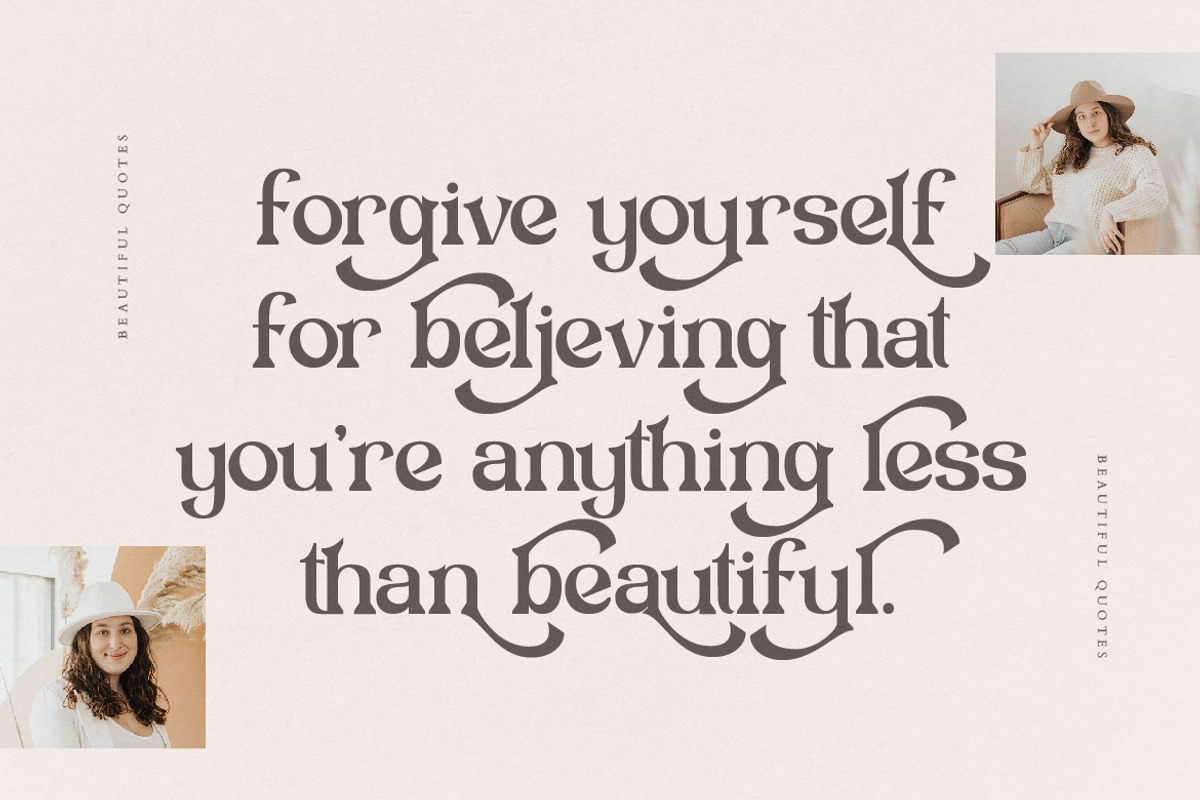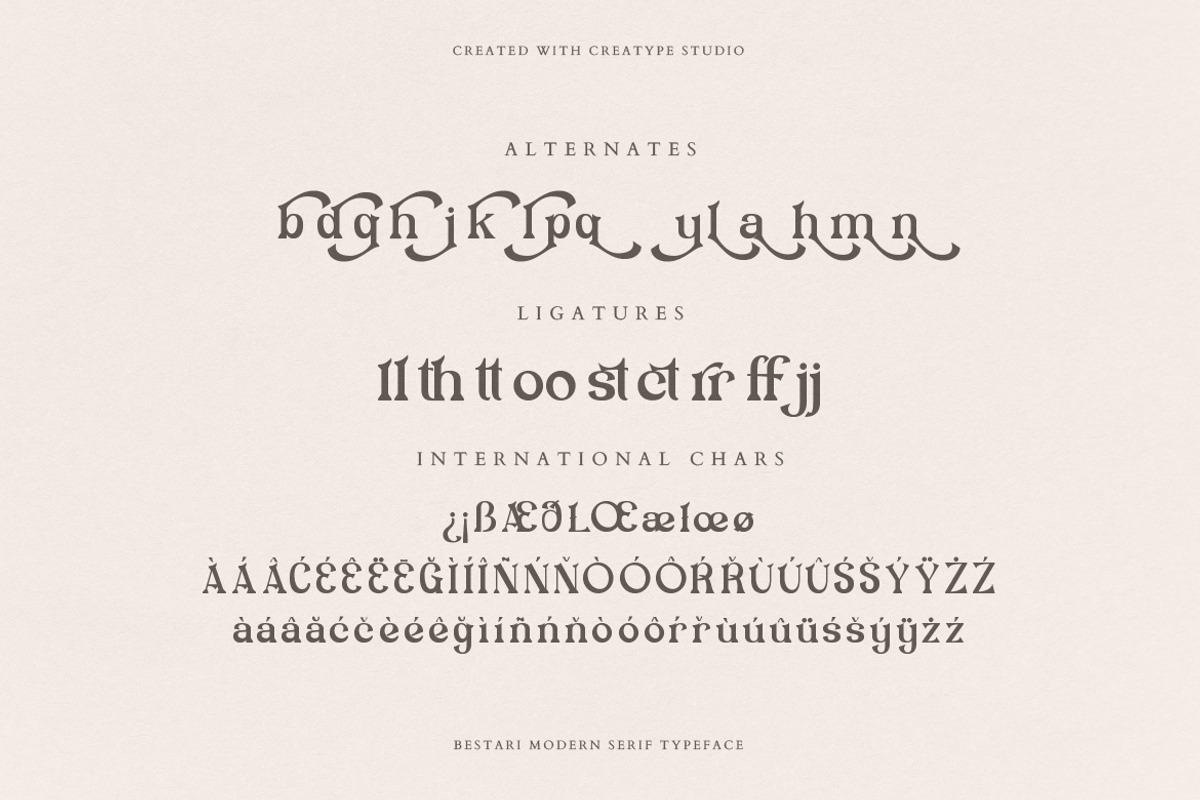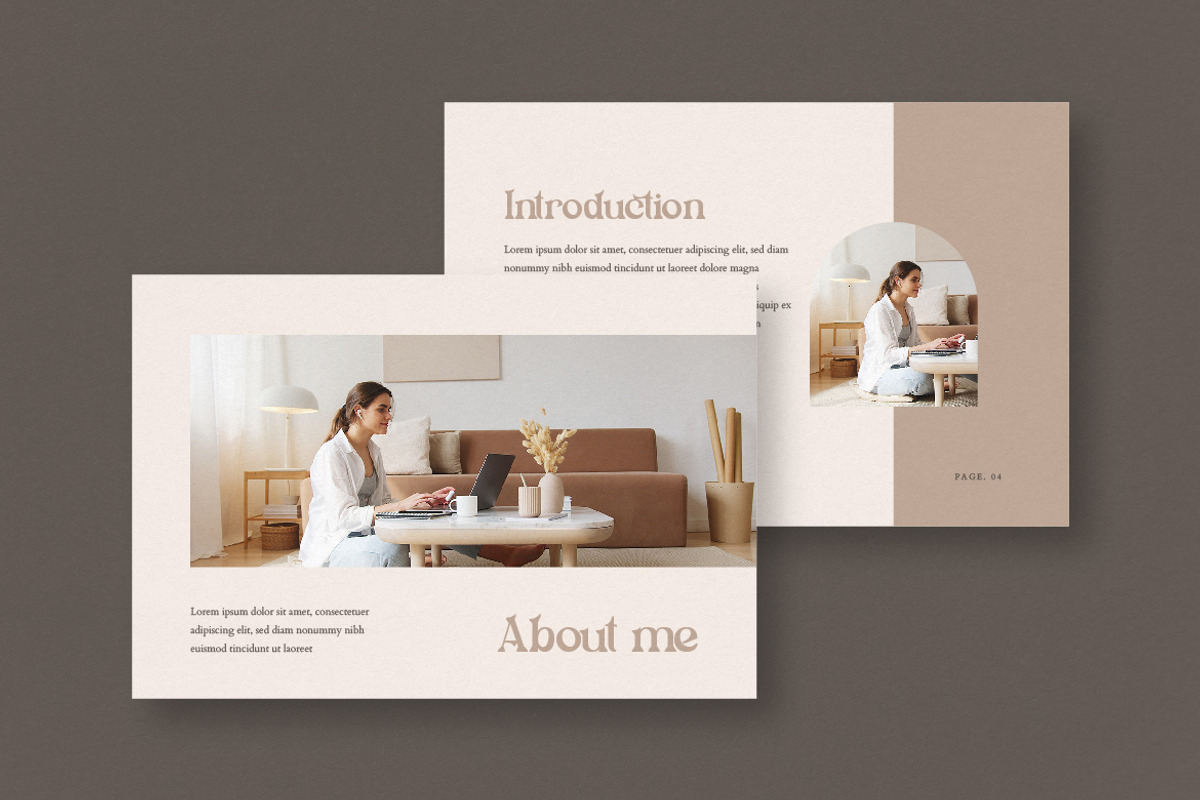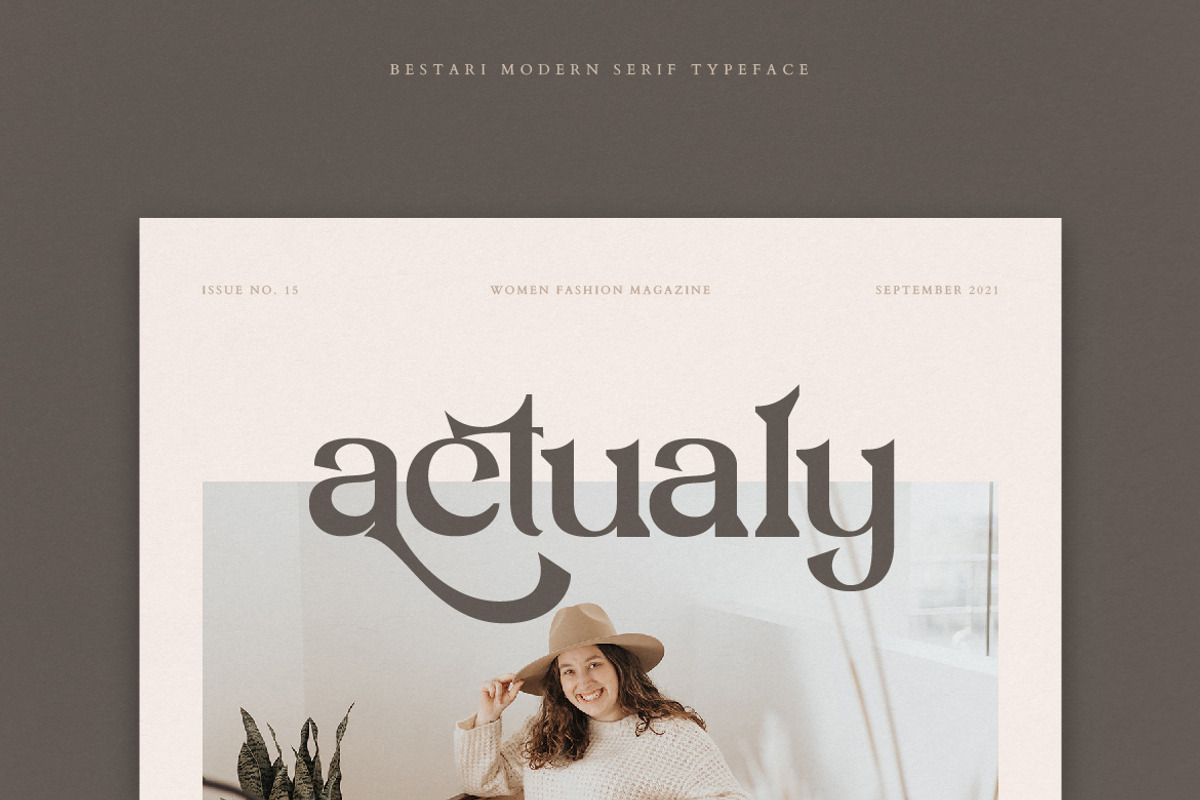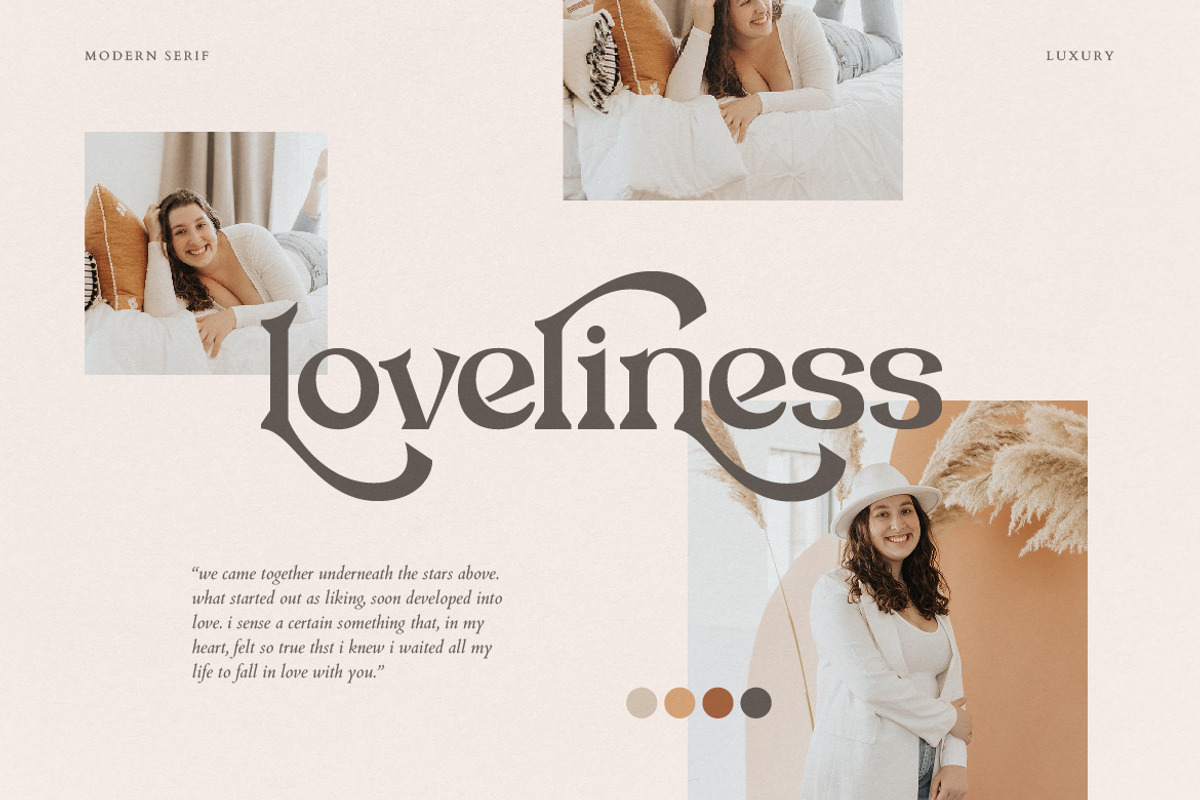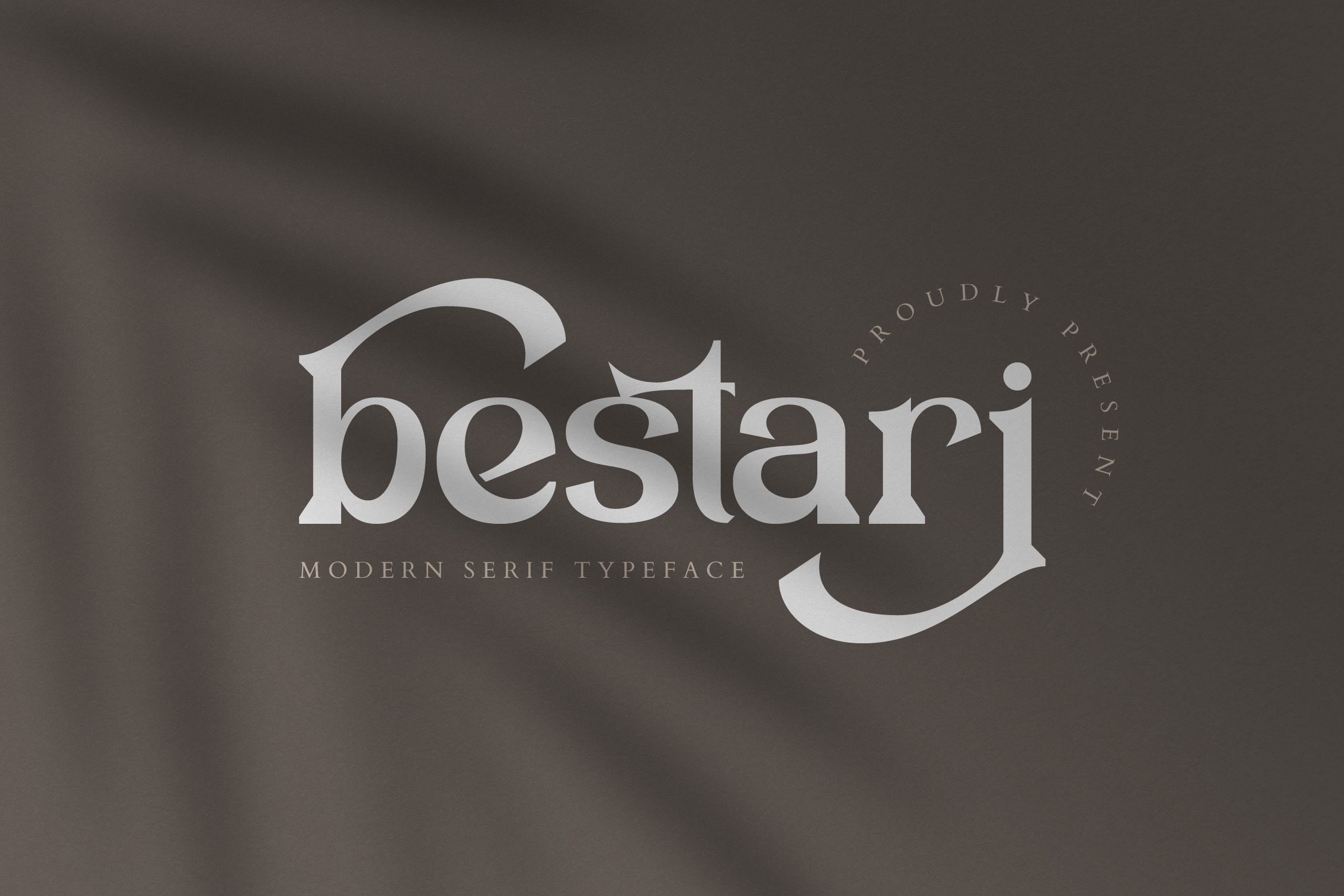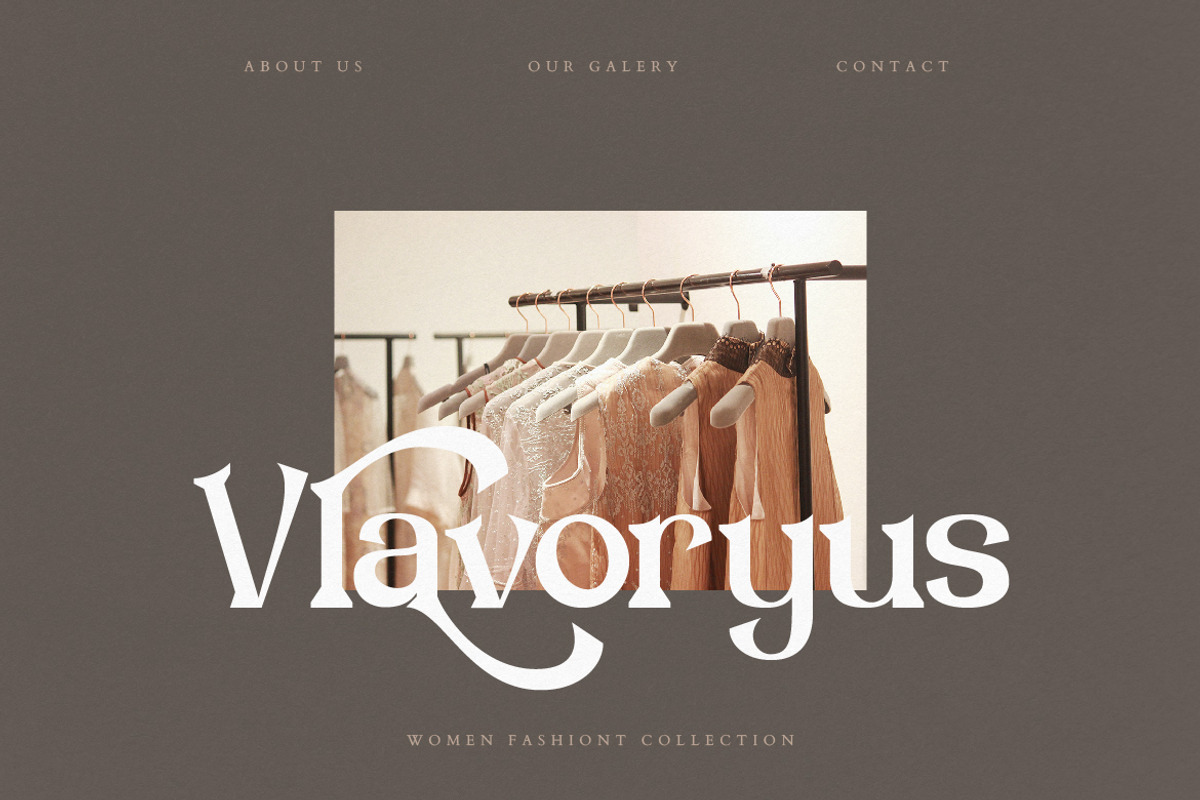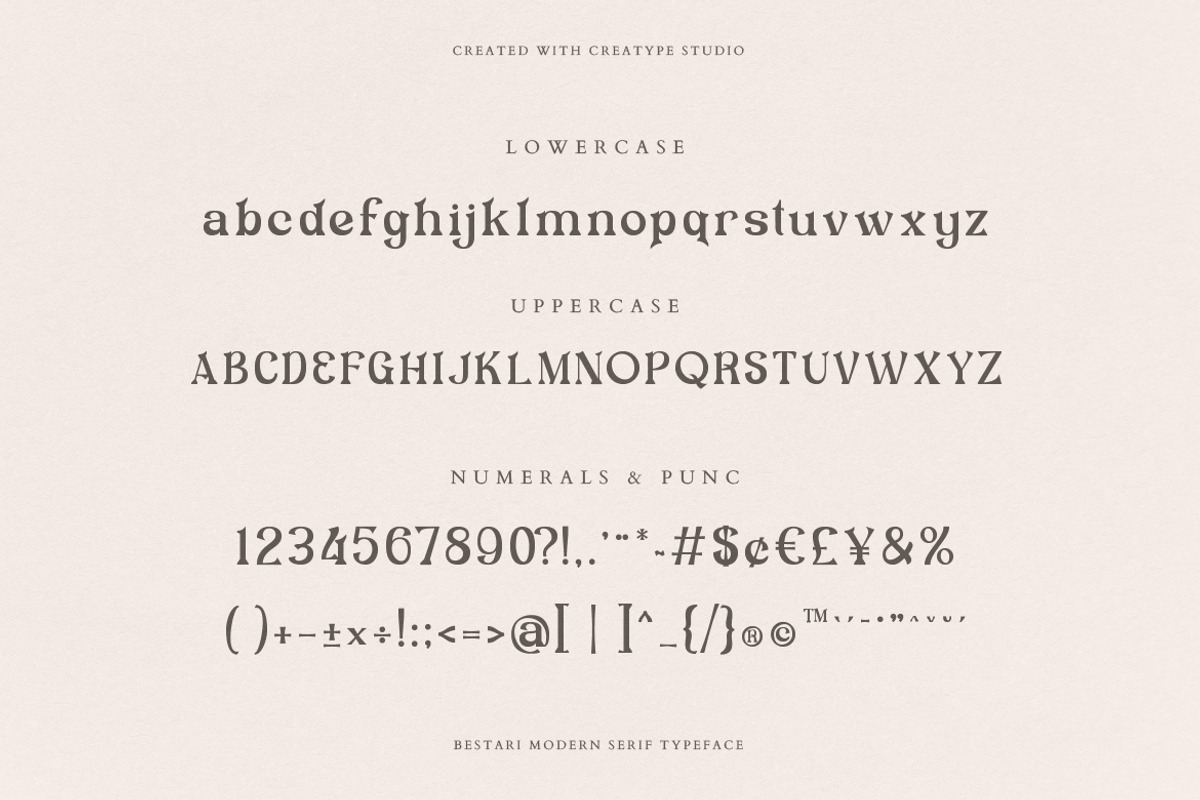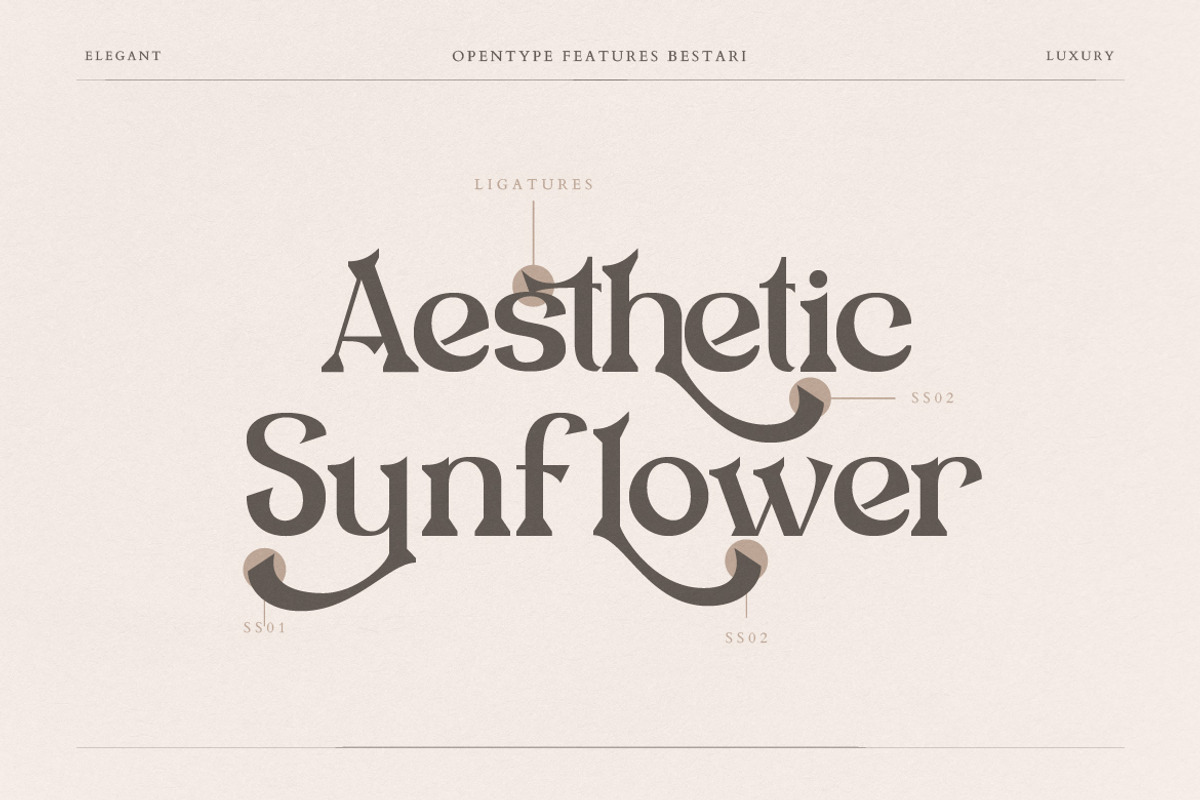
Bestari Serif Business Font
Bestari is a modern serif typeface built specifically for great-looking fonts. With its bold and unique shape, it makes this font look so elegant and modern.
Bestari is perfect for branding projects, logo, wedding designs, social media posts, advertisements, product packaging, product designs, label, photography, watermark, invitation, stationery and any projects that need handwriting taste.
- Ligature & Alternate
- Fonts include multilingual support for; Afrikaans, Albanian, Czech, Danish, Dutch, English, Estonian, Finnish, French, German, Hungarian, Italian, Latvian, Lithuanian, Norwegian, Polish, Portuguese, Slovak, Slovenian, Spanish, Swedish.